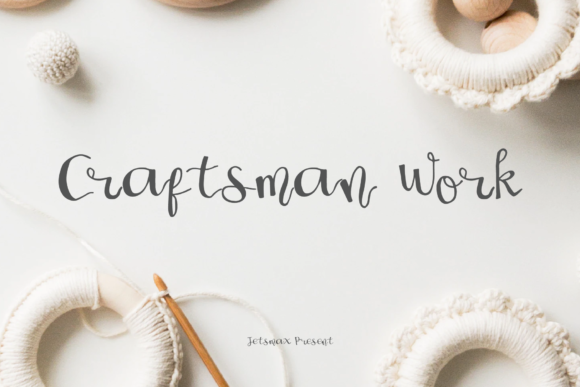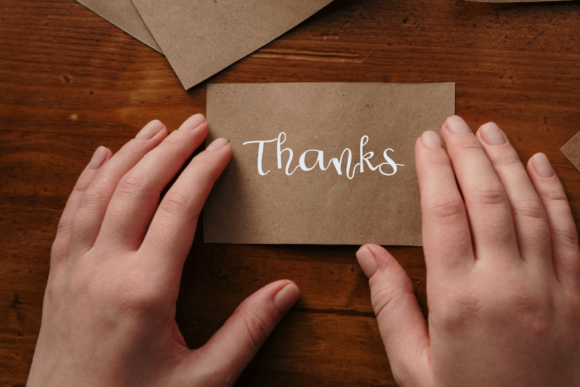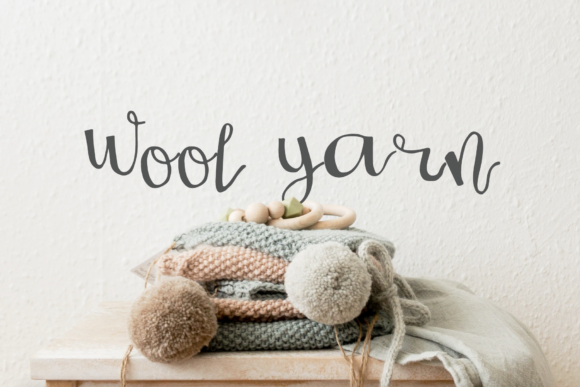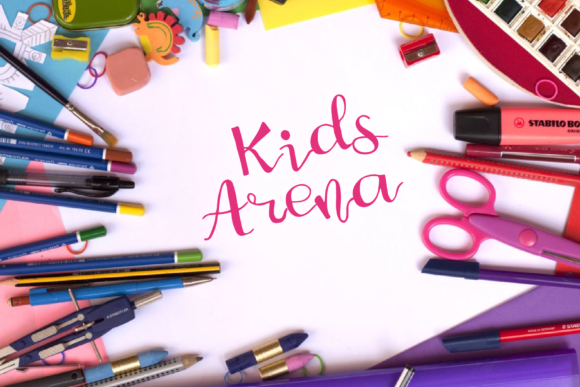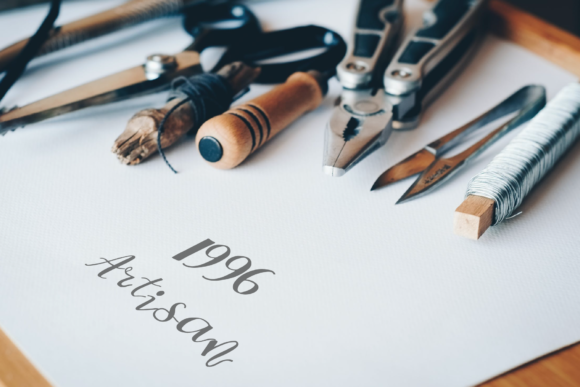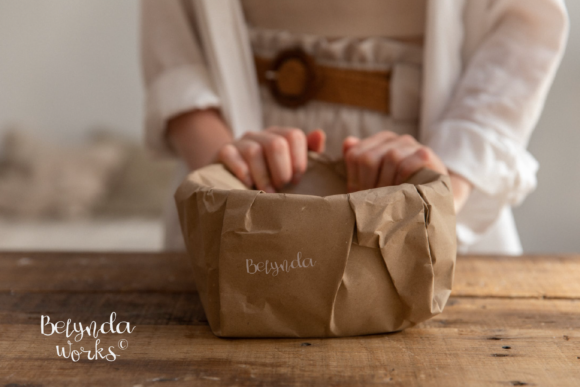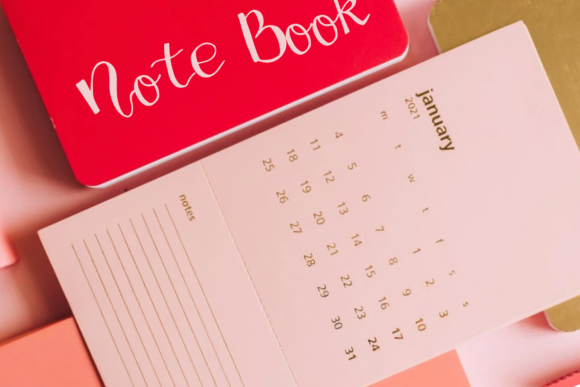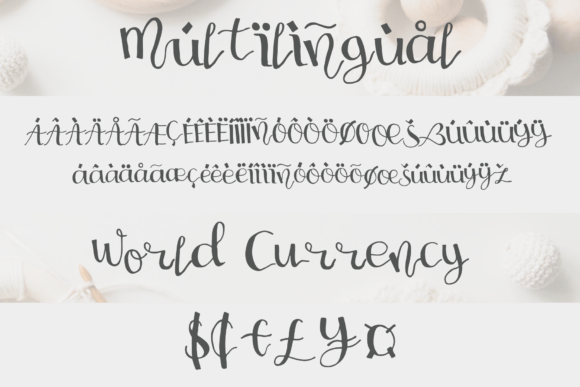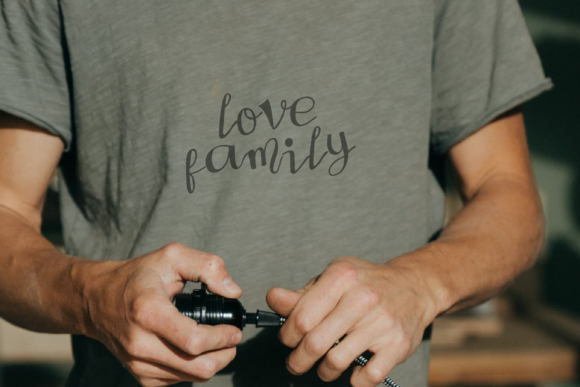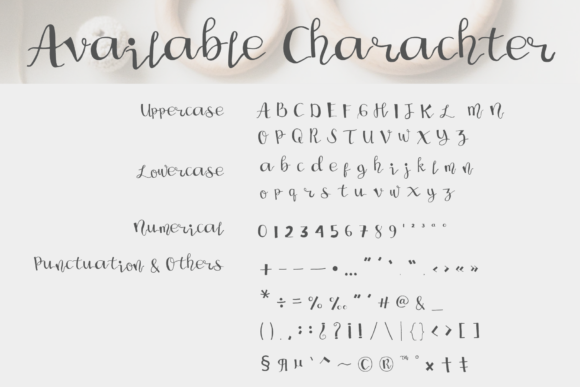
Craftsman Work Font
About Craftsman Work Font
Craftsman Work is a whimsical script font with a relaxed theme, featuring a lovely style. No matter the topic, this font will be an incredibly asset to your fonts’ library, as it has the potential to elevate any creation.